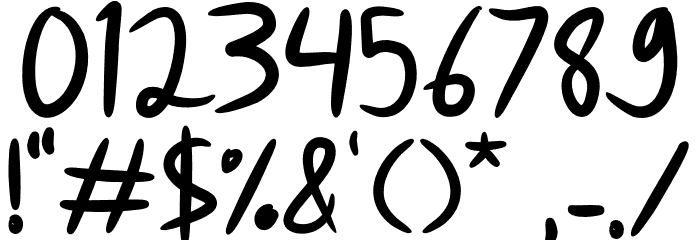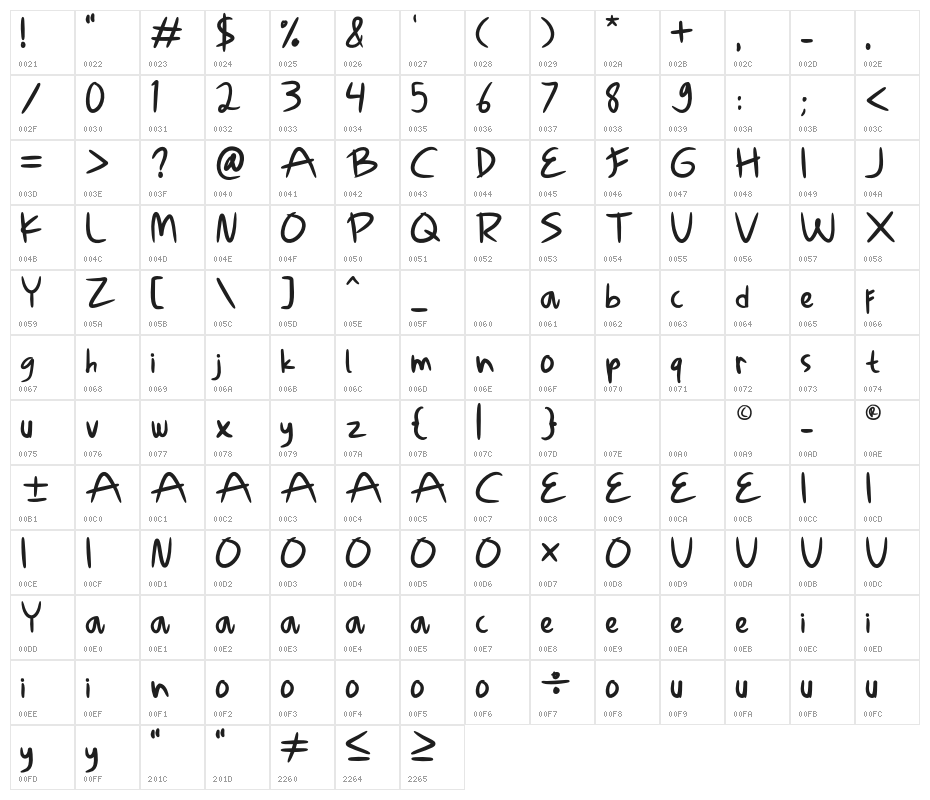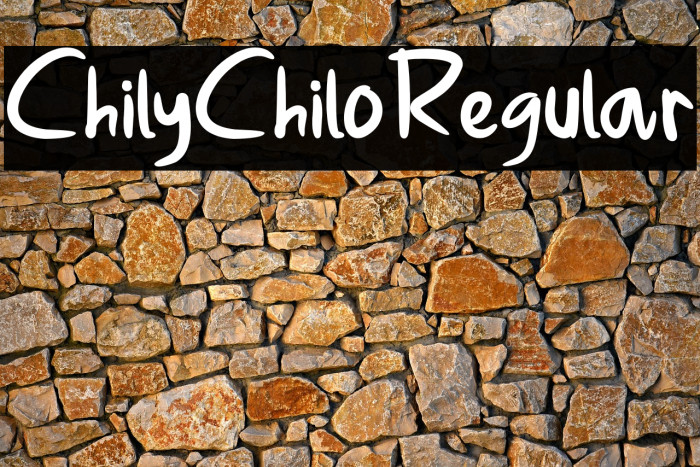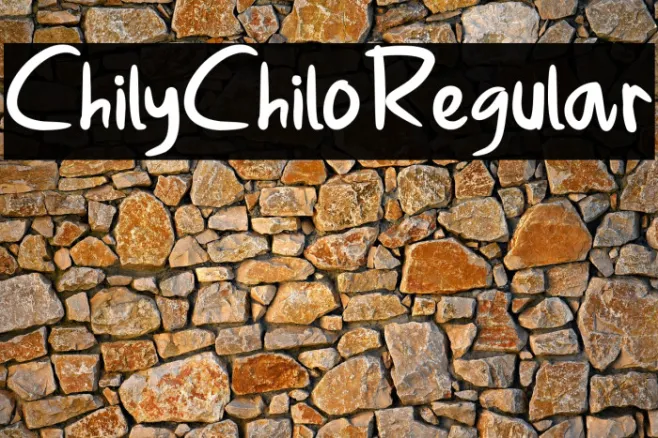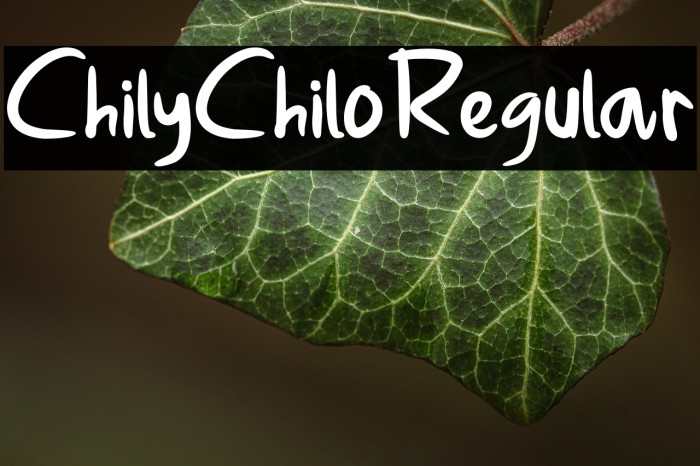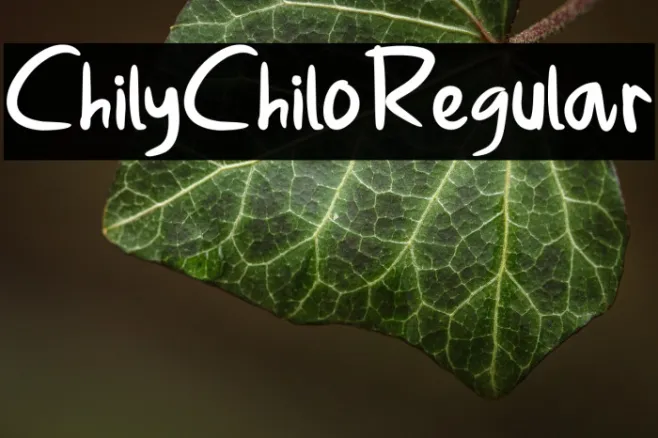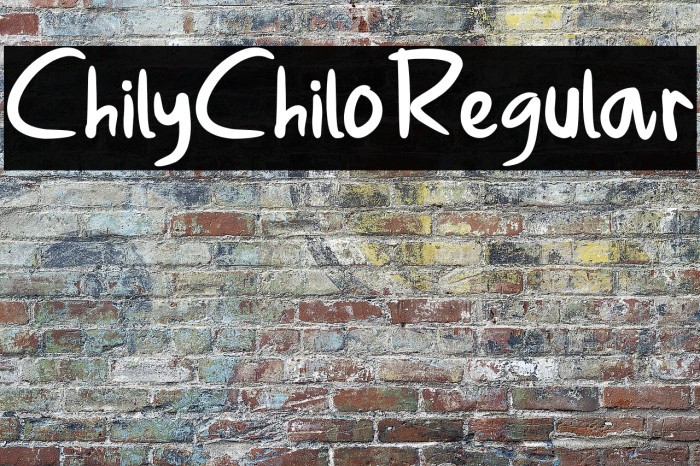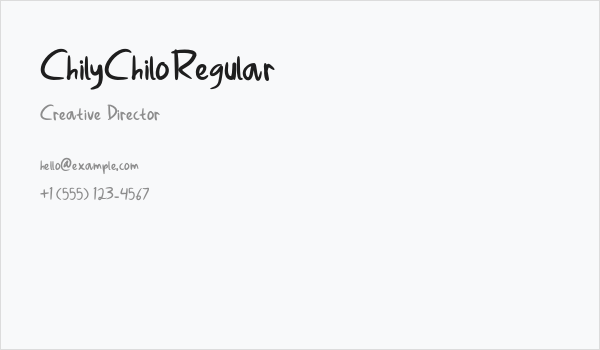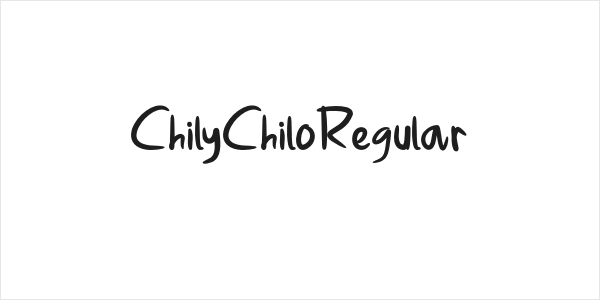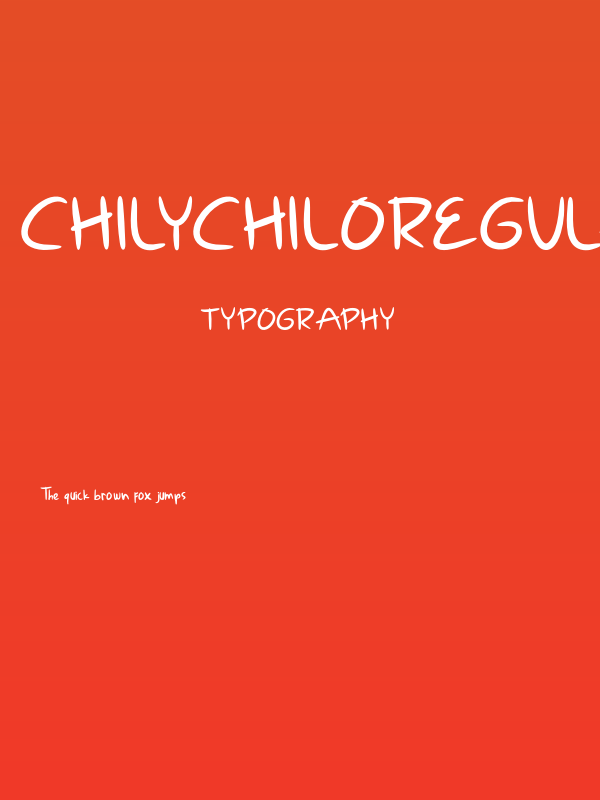
ChilyChiloRegular Font
ChilyChiloRegular Description
This playful and energetic font features a handwritten style with a casual, informal appearance. The letters are slightly slanted, giving a sense of movement and liveliness. The strokes are bold and rounded, providing a friendly and approachable feel. The uppercase and lowercase letters maintain a consistent style, with a slight variation in size and shape that adds to the handwritten charm. The numbers and special characters are equally expressive, complementing the overall aesthetic. This font is perfect for projects that require a personal touch or a fun, creative vibe.
| Overall Style | Playful, Informal |
| Proposed Projects | Ideal for greeting cards, children's books, playful branding, and social media graphics. |